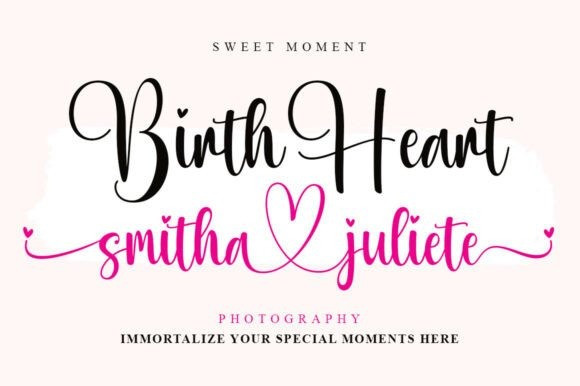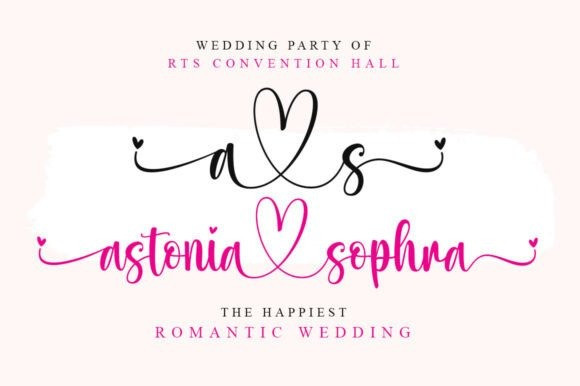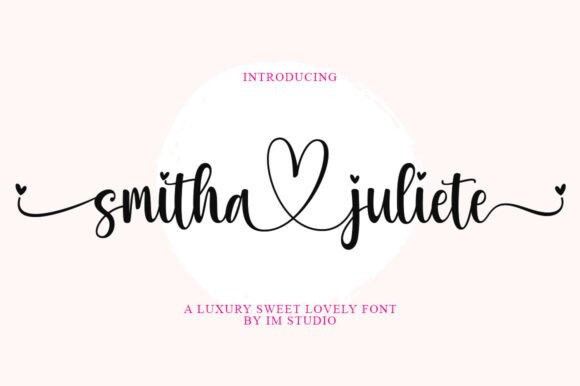
Smitha Juliete Script Font
Smitha Juliete Script Font is an enchanting, single-stroke handwriting font that exudes playful elegance. Its delightful feature – a heart-shaped flourish – instantly crafts an atmosphere of romance and affection. With its inherent charm and simplicity, this font breathes life into Valentine-themed creations, wedding invites, and birthday greetings.
It also splendidly accentuates the appeal of t-shirt artwork, arts and crafts projects, stickers, sublimation designs, and so much more. Unearth the aesthetic potential of your designs with the ‘Smitha Juliete’ font, delivering a sophisticated yet adorable flair.